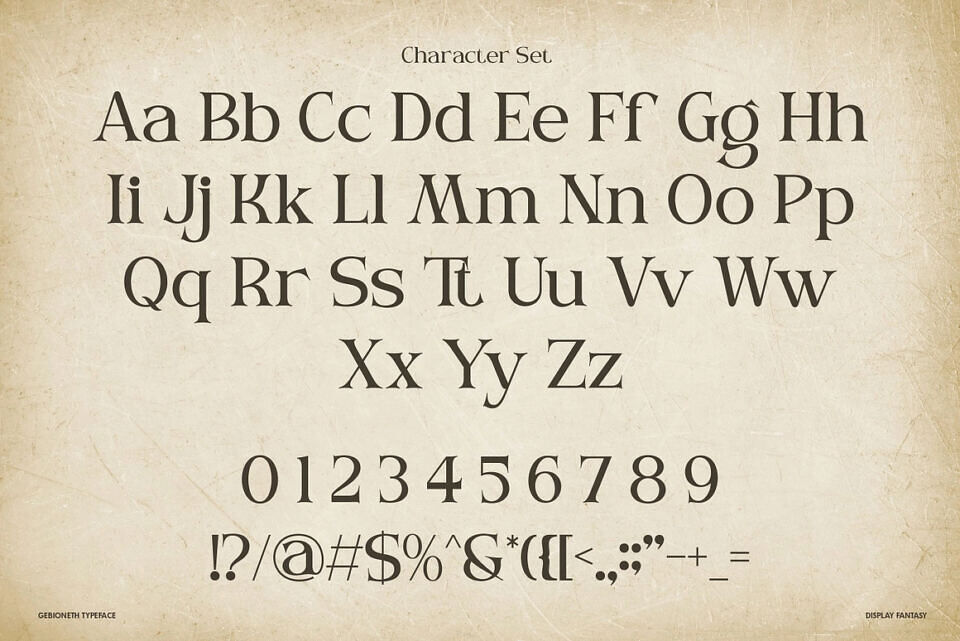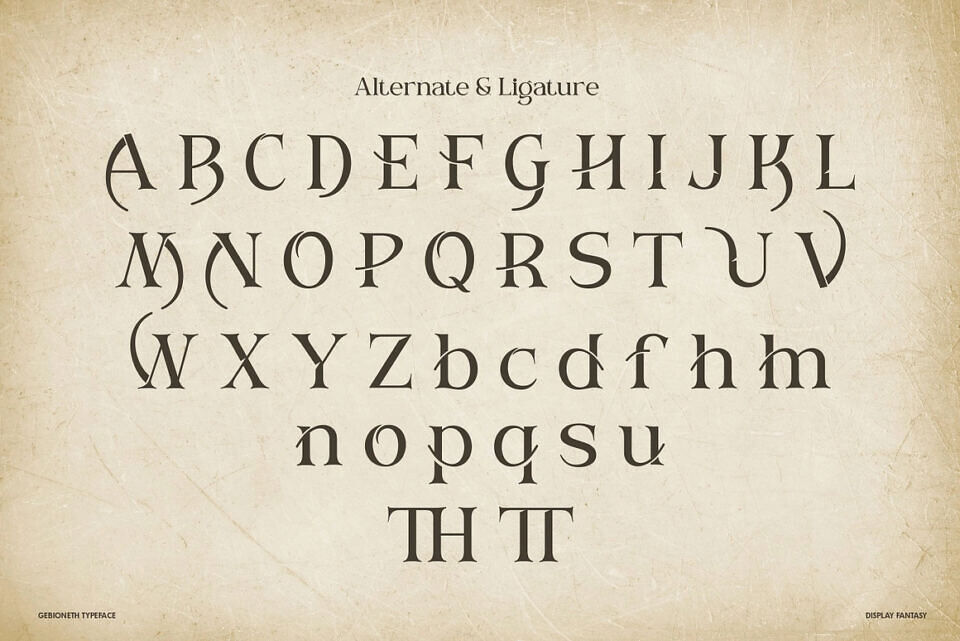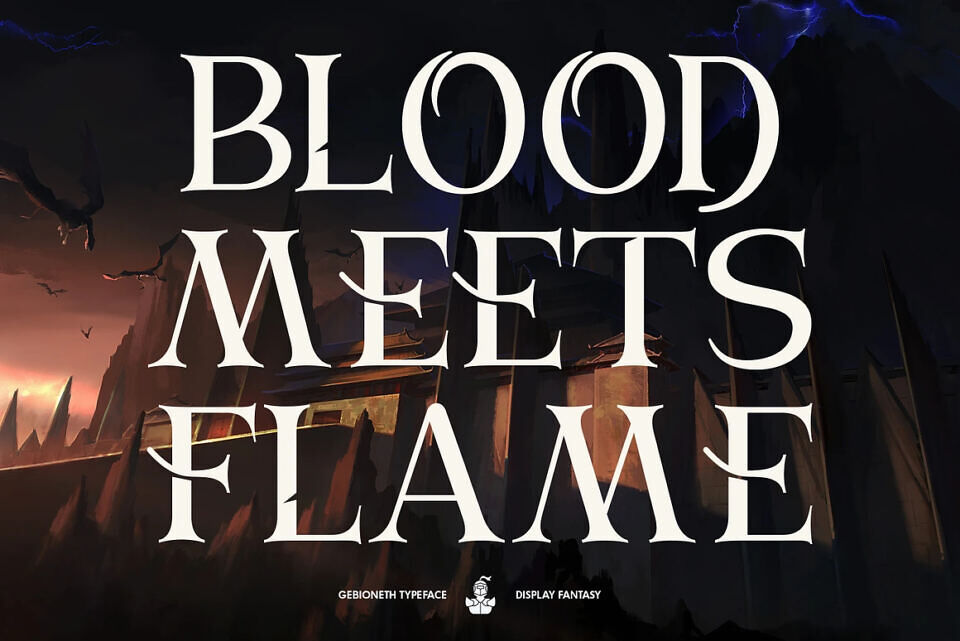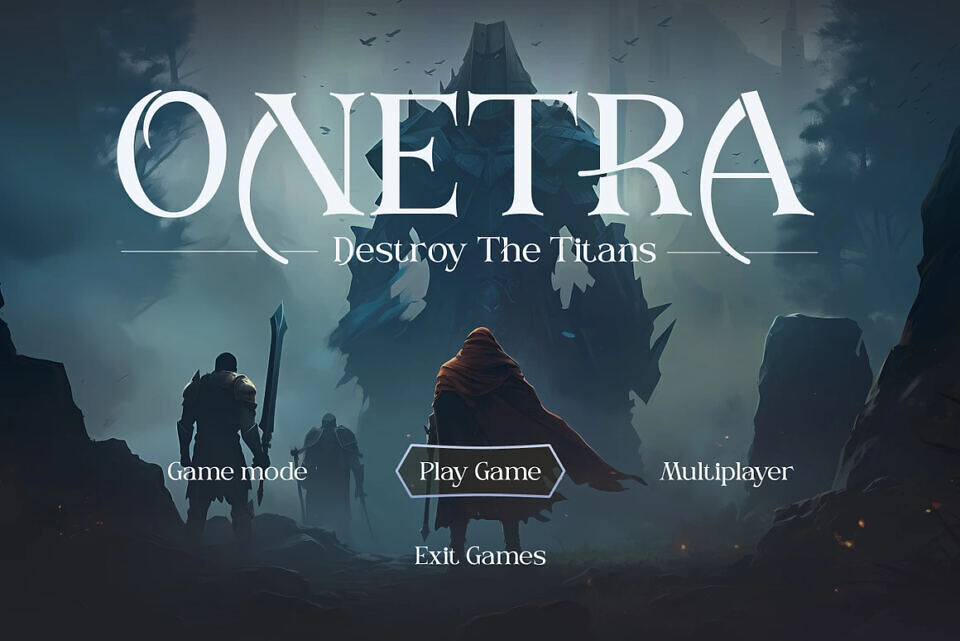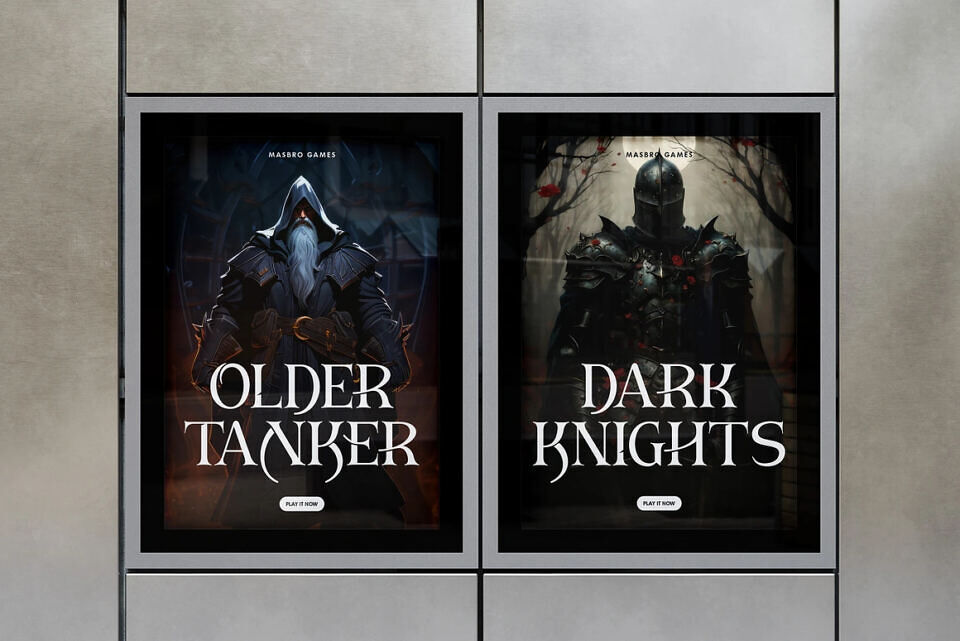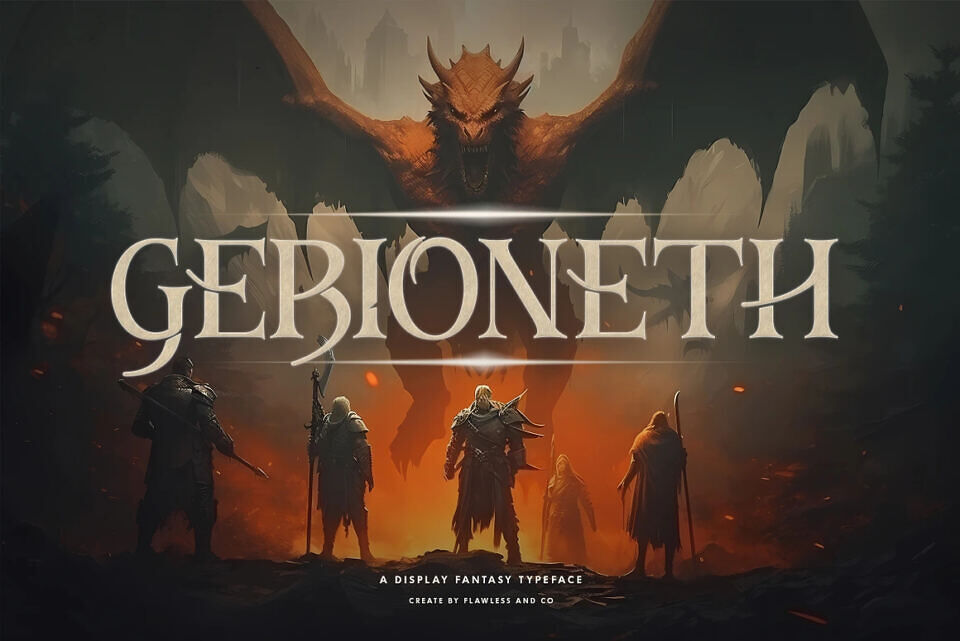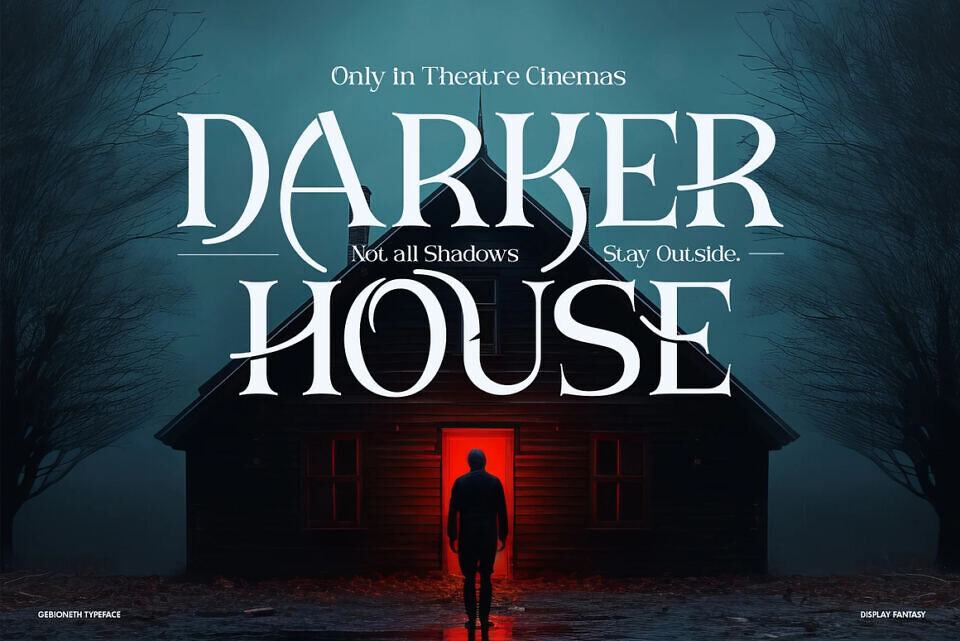
Gebioneth Font
Gebioneth is a bold and powerful fantasy display typeface, crafted to bring an epic touch to your creative projects. With its sharp details, mystical curves, and dramatic character shapes, Gebioneth captures the essence of medieval fantasy worlds filled with warriors, dragons, and legends.
Perfect for game titles, movie posters, book covers, branding, or any project that demands a heroic and legendary feel, Gebioneth makes your words look timeless and unforgettable. Its unique design blends elegance with strength, making it a must-have font for fantasy lovers, creators, and designers who want to stand out.